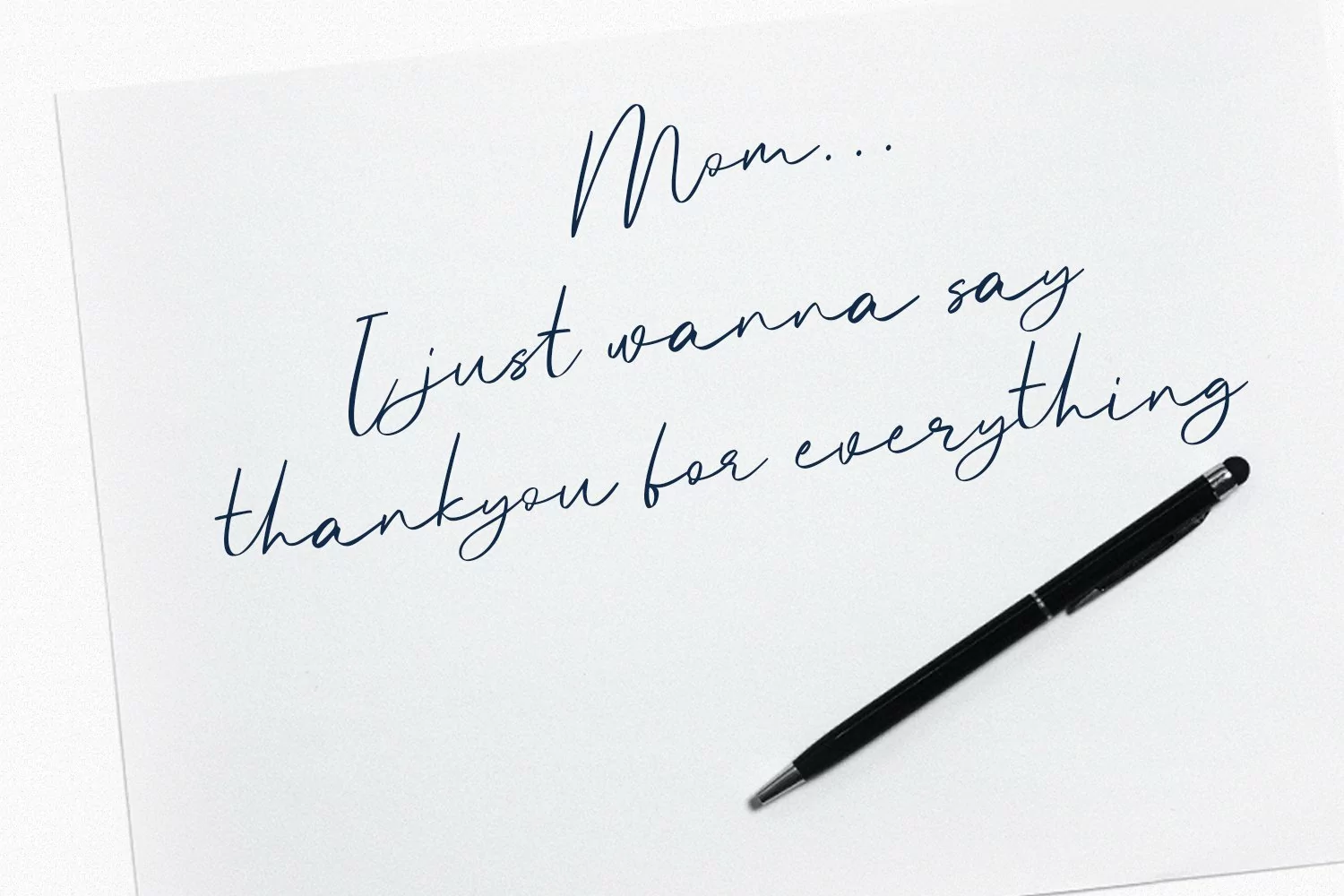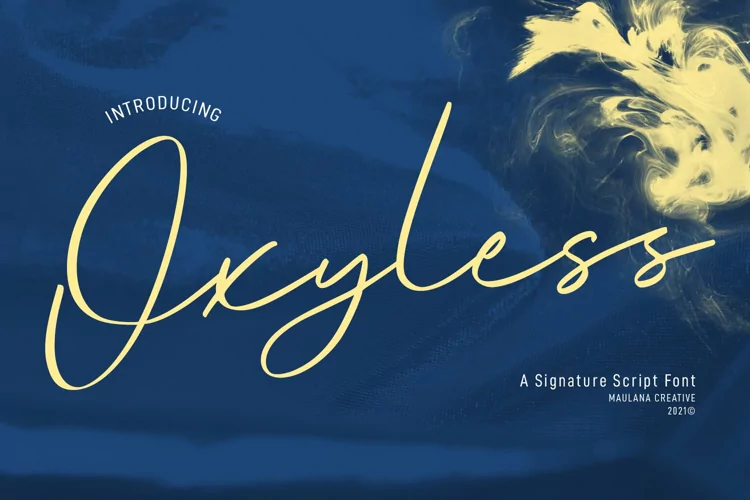
Oxyless is a Unique Script font. With regular contrast stroke, slanted and fun character with a bit of ligatures. To give you an extra creative work. Oxyless font support multilingual more than 100+ language. This font is good for logo design, Social media, Movie Titles, Books Titles, a short text even a long text letter and good for your secondary text font with sans or serif. Make a stunning work with Oxyless font.